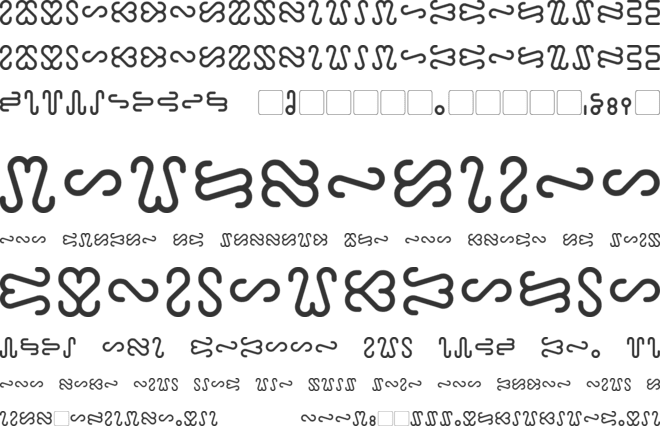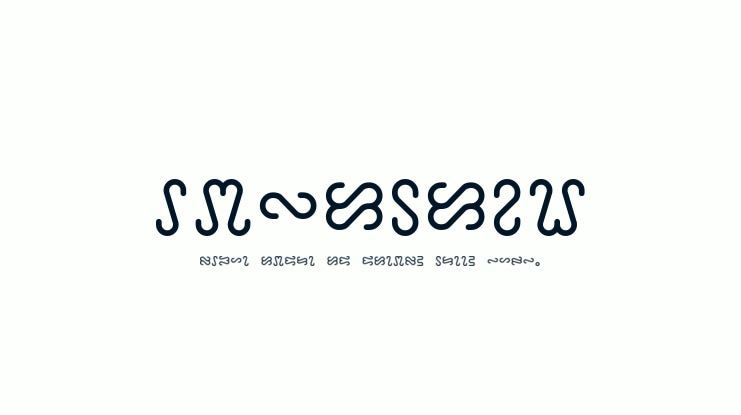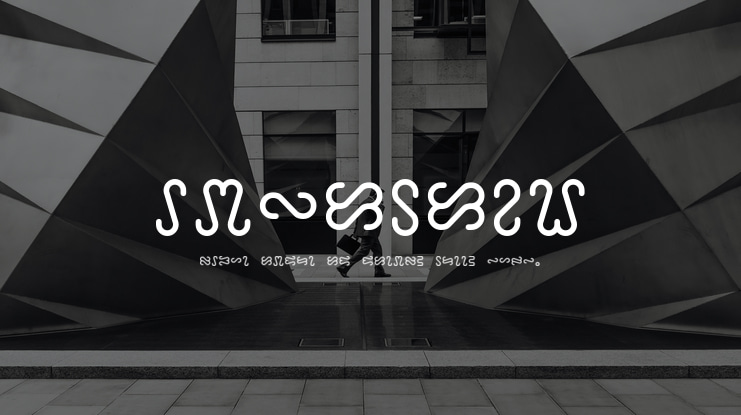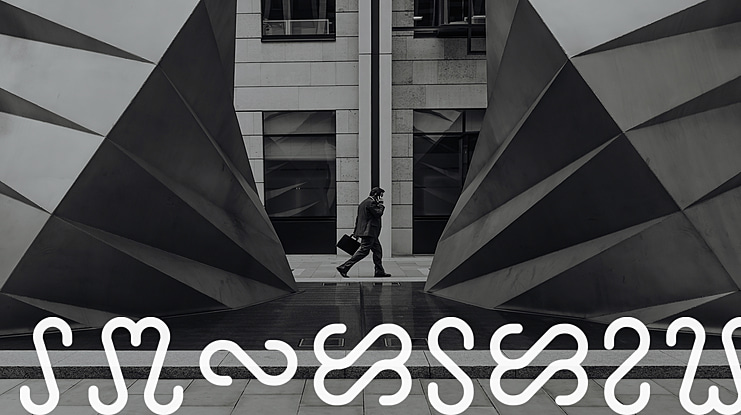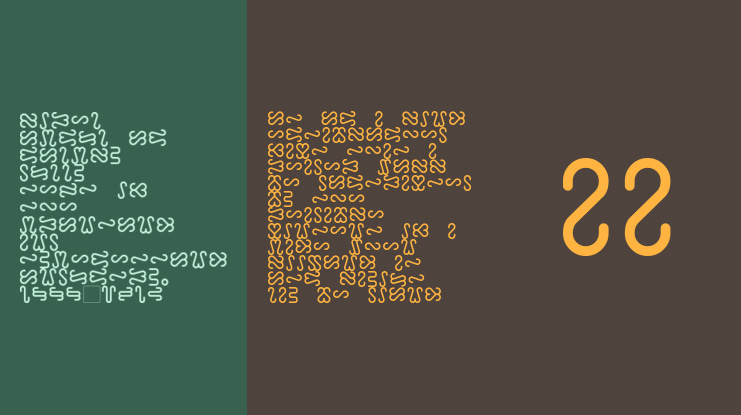
Ophidian Font Family
Ophidian is simple script is based on the “Serpentine” writing and magic runes from Origin System’s Ultima 7: The Black Isle. (This was also used for their copy-protection wheel.) This includes the entire canonical alphabet and numbers. Includes regular, bold, italic, and bold-italic weights.